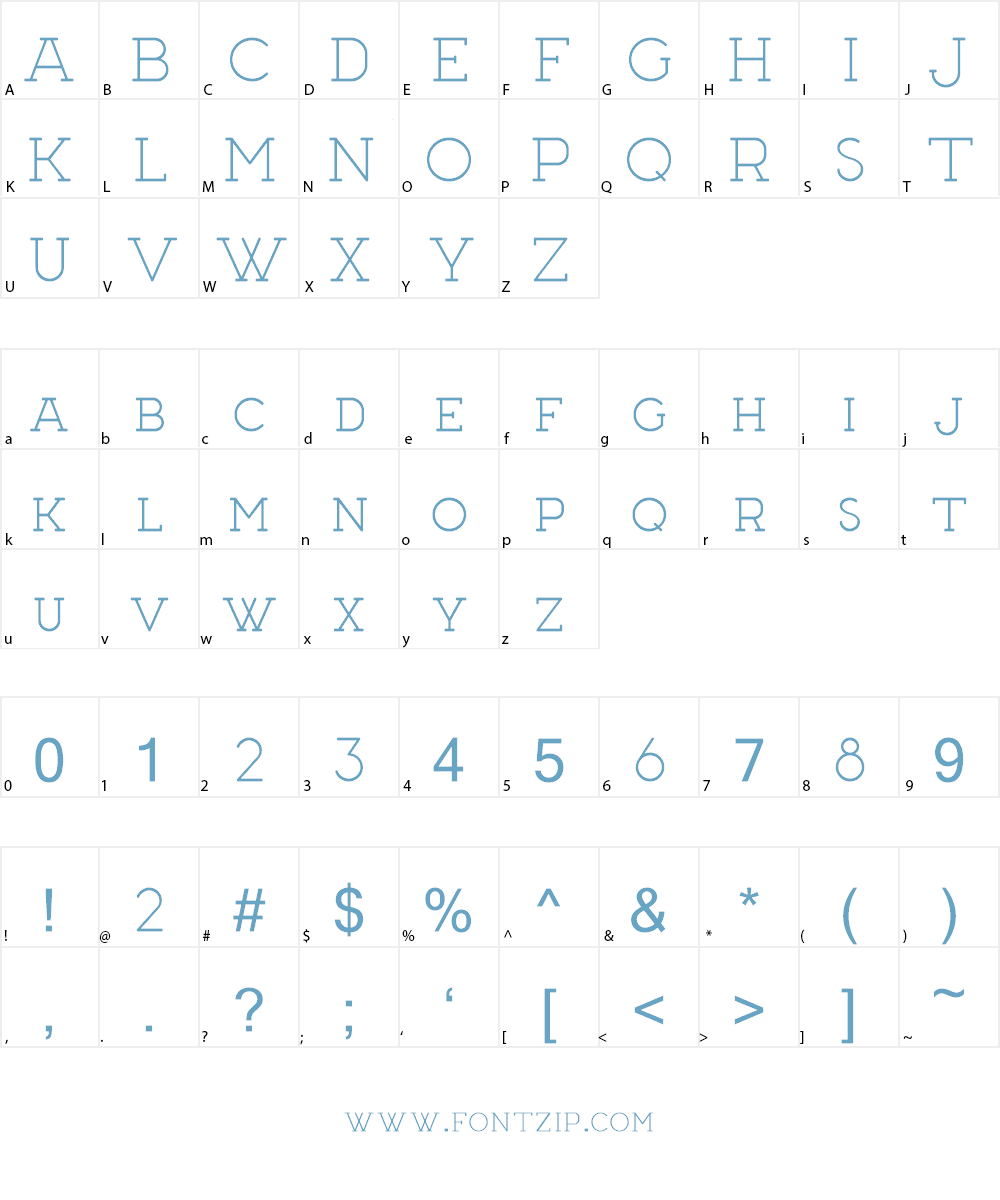
Renown Monoline is a brand new geometric monoline font family. The font is provided in slab serif and sans serif formats, with small caps in the lower case. Lots of punctuation and accented characters as well.
- Renown Monoline Light
- Renown Monoline
- Renown Monoline Bold
- Renown Monoline Extra Bold
- Renown Monoline Sans Light
- Renown Monoline Sans
- Renown Monoline Sans Bold
- Renown Monoline Sans Extra Bold